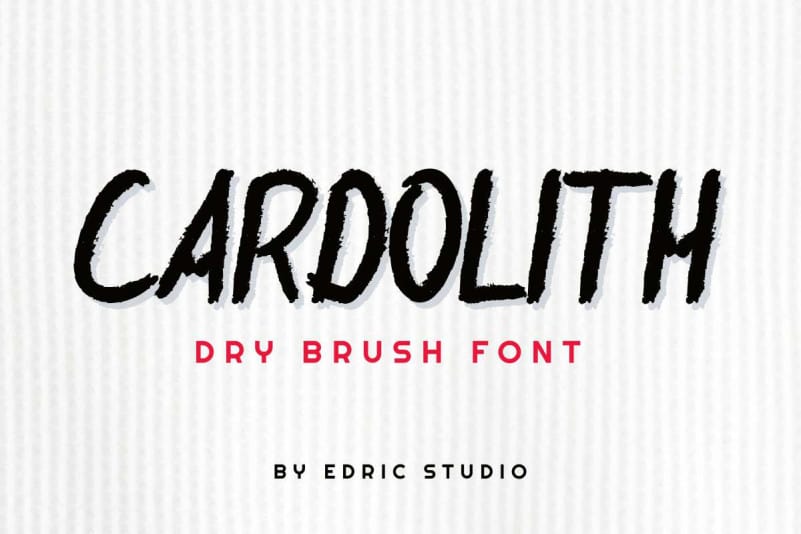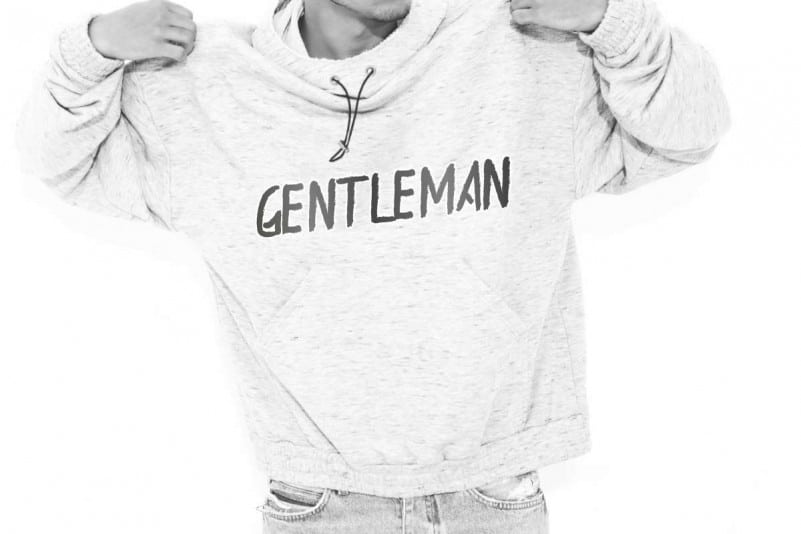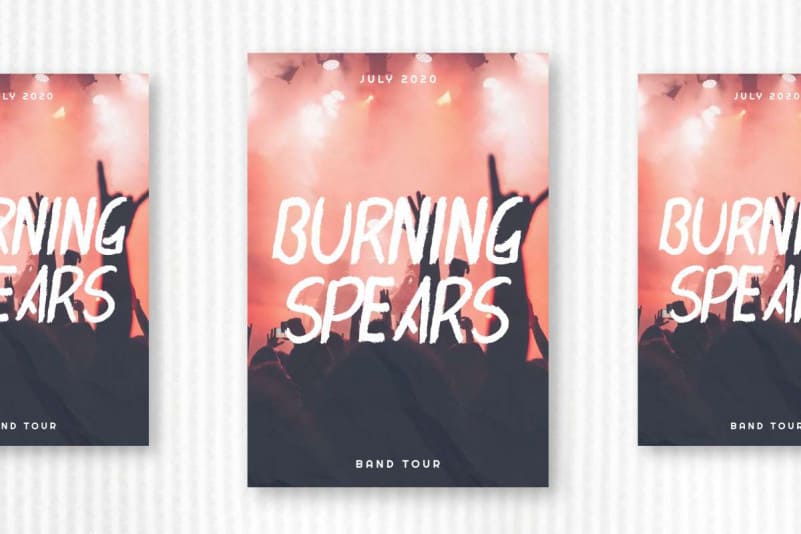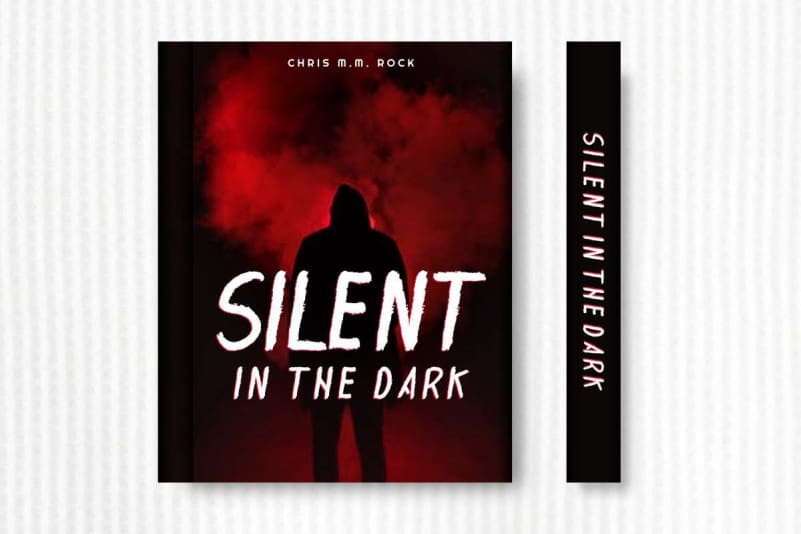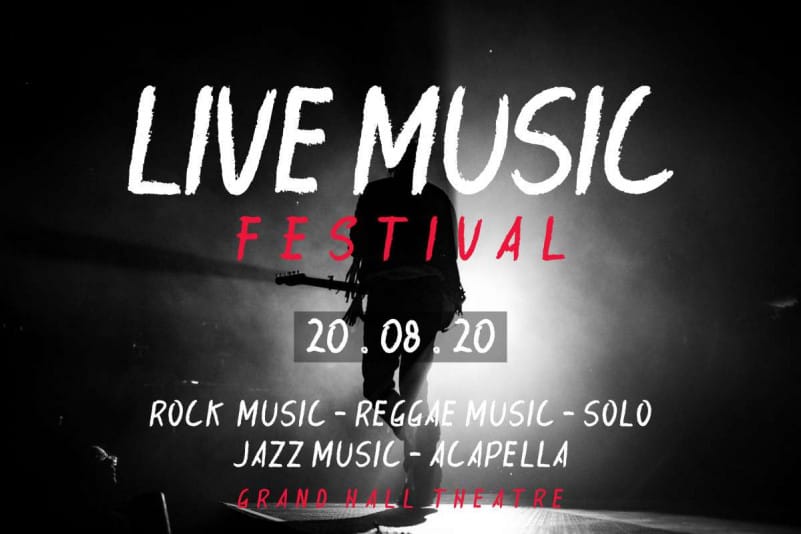
Cardolith Rough Brush Font
Cardolith Rough Brush Font is a rough dry brush decorative typeface with unique style. This font has a stunning characters set, perfectly managed with well spaced and kerning. The theme style of this font will horror, mysterious, dark, freak, ghost, underground funny, fancy, unique, vintage, stylish, sophisticated and rough style. You wont find any where else, the font like Cardolith Rough Font
Cardolith Rough Brush Font will be great for any projects including : branding, logo, stationery, business card, signage, flyer, brochure etc. Almost all industries will be match for this typeface: wedding, events, florist, gardening, makeup artist, travel, hotel, musician etc